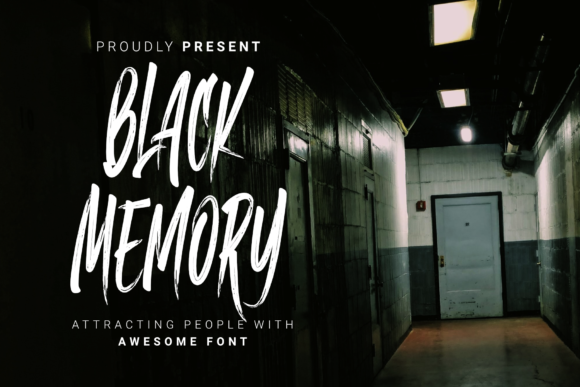
Unleash Your Creativity with Black Memory Font: The Ultimate Brushed Display Font
Are you tired of using the same old fonts in your designs? Do you want to add a touch of casual elegance to your creations? Look no further than the Black Memory Font, a stunning brushed display font that’s perfect for a wide range of projects. In this article, we’ll dive into the world of Black Memory Font, exploring its unique features, benefits, and uses.
What is Black Memory Font?
Black Memory Font is a one-of-a-kind brushed display font that’s designed to add a cool and relaxed vibe to your designs. With its unique texture and elegant lines, this font is perfect for creatives who want to make a statement. Whether you’re working on a logo, poster, or social media graphic, Black Memory Font is sure to turn heads.
Key Features of Black Memory Font
• Brushed Texture: Black Memory Font boasts a distinctive brushed texture that gives it a handcrafted feel. This texture adds a level of depth and visual interest to your designs, making them stand out from the crowd.
• Cool and Relaxed: This font has a laid-back, casual vibe that’s perfect for designs that need to feel relaxed and approachable. Whether you’re creating a social media graphic or a flyer, Black Memory Font is sure to fit the bill.
• Highly Versatile: Black Memory Font works well on a wide range of projects, from logos and posters to social media graphics and more. Its versatility makes it a valuable addition to any designer’s toolkit.
• Elegant Lines: The elegant lines of Black Memory Font give it a sophisticated feel that’s perfect for designs that need to convey a sense of style and refinement.
Benefits of Using Black Memory Font
So why should you choose Black Memory Font for your next project? Here are just a few benefits of using this amazing font:
• Adds Visual Interest: The unique texture and elegant lines of Black Memory Font make it a great way to add visual interest to your designs. Whether you’re working on a logo or a poster, this font is sure to grab attention.
• Conveys a Casual Vibe: Black Memory Font has a relaxed, casual vibe that’s perfect for designs that need to feel approachable and laid-back. This font is ideal for social media graphics, flyers, and other projects where you want to connect with your audience.
• Easy to Read: Despite its unique texture, Black Memory Font is surprisingly easy to read. This makes it a great choice for designs that need to communicate a message clearly and effectively.
How to Use Black Memory Font in Your Designs
Ready to start using Black Memory Font in your designs? Here are a few tips to get you started:
• Pair it with Other Fonts: Black Memory Font works well when paired with other fonts, especially sans-serif fonts like Arial or Helvetica. Experiment with different combinations to find the perfect look for your design.
• Use it for Headlines: The bold, brushed texture of Black Memory Font makes it perfect for headlines and titles. Use it to grab attention and draw the eye to your message.
• Add Texture and Depth: Black Memory Font has a distinctive texture that adds depth and visual interest to your designs. Experiment with different textures and overlays to take your designs to the next level.
In conclusion, Black Memory Font is a unique and versatile brushed display font that’s perfect for a wide range of projects. With its cool and relaxed vibe, elegant lines, and highly legible texture, this font is sure to become a staple in your design toolkit. Whether you’re a seasoned designer or just starting out, Black Memory Font is a great choice for anyone looking to add a touch of style and sophistication to their creations.